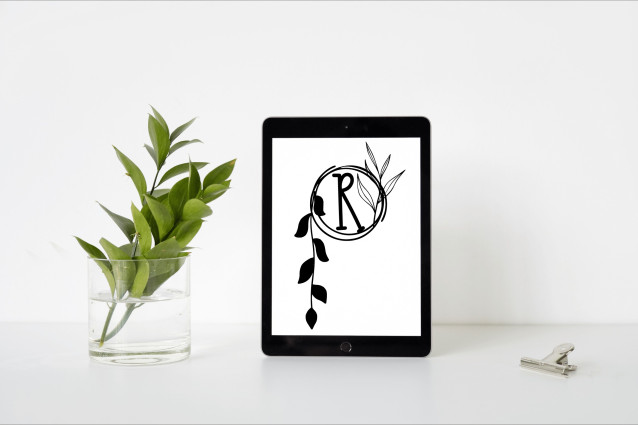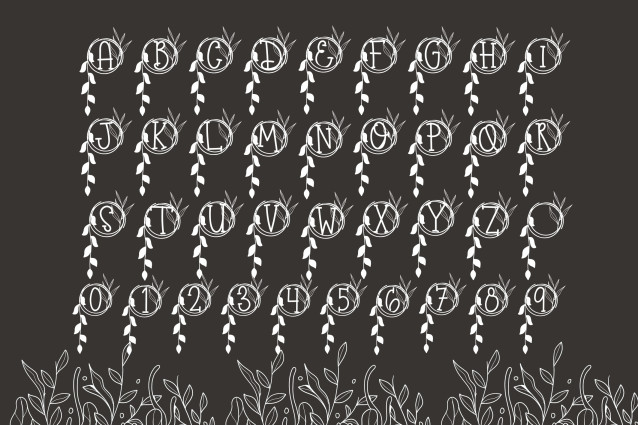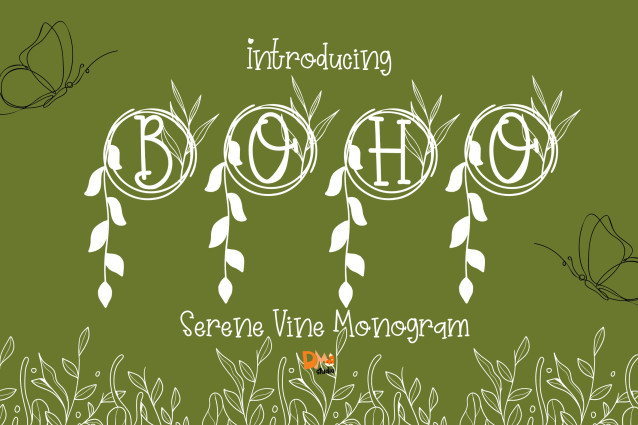
Serene Vine Monogram Font
Serene Vine Monogram Font is a tranquil and graceful serif monogram font featuring uppercase letters delicately entwined with flowing vine illustrations. Designed with a calming, nature-inspired touch, it’s perfect for wedding monograms, boho branding, Cricut crafts, and personalized packaging that call for elegance with an organic feel.